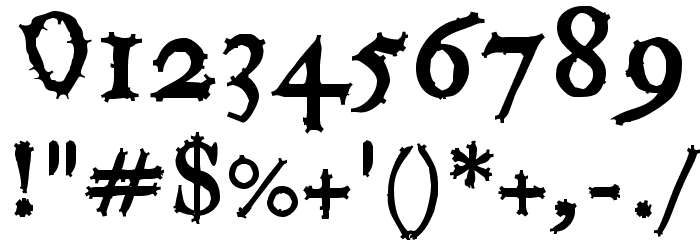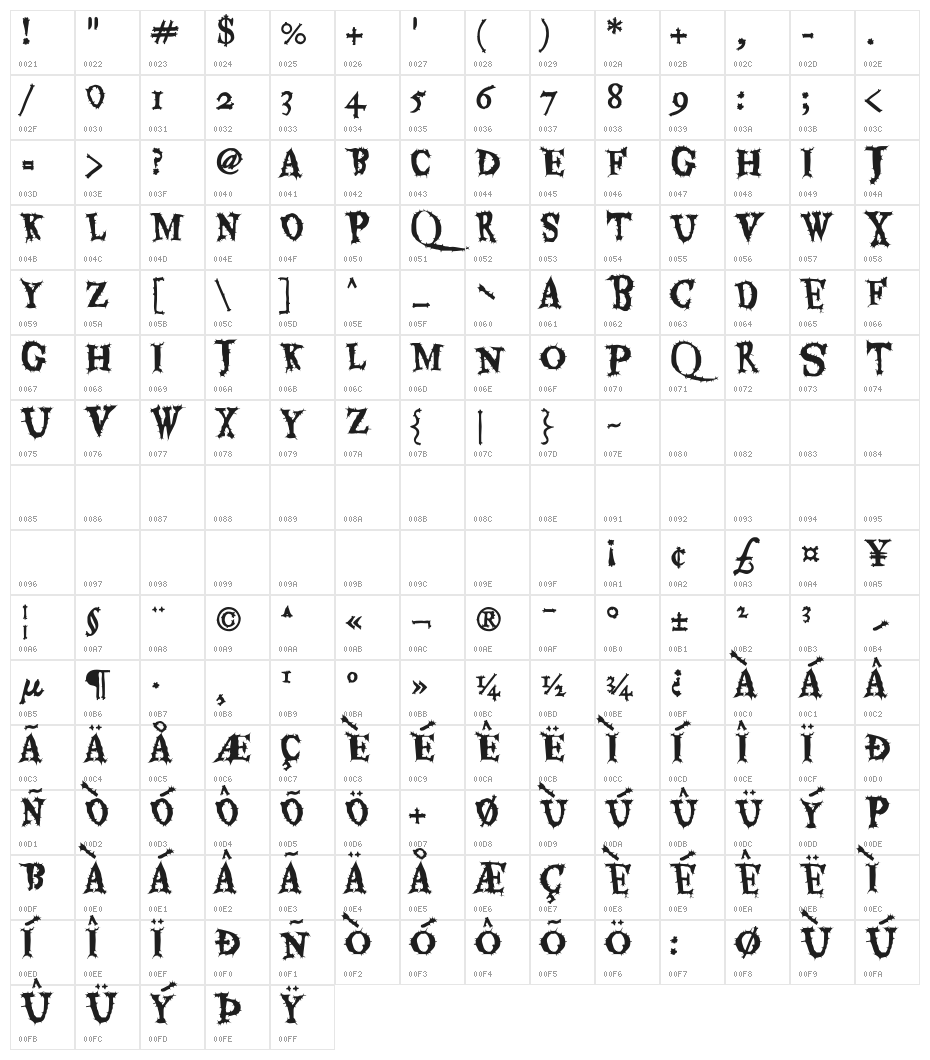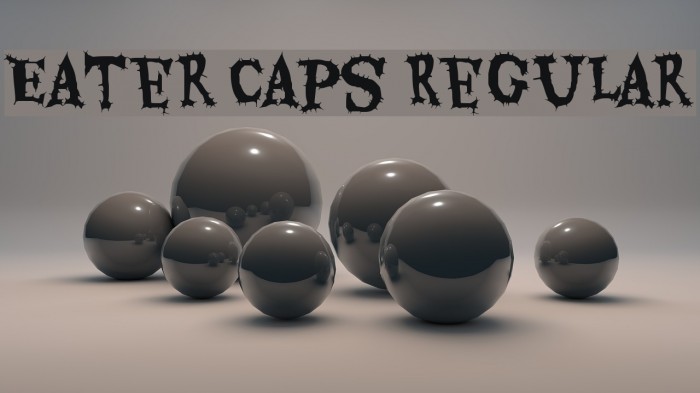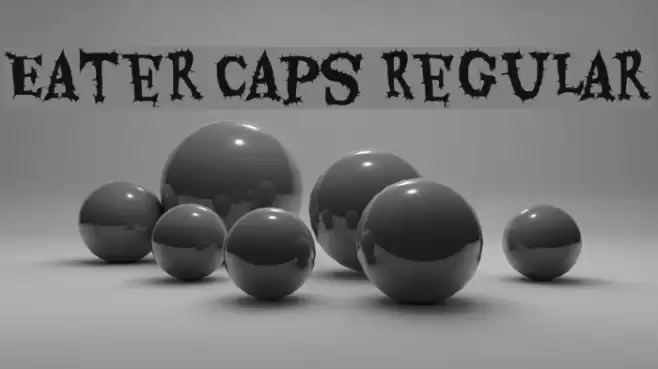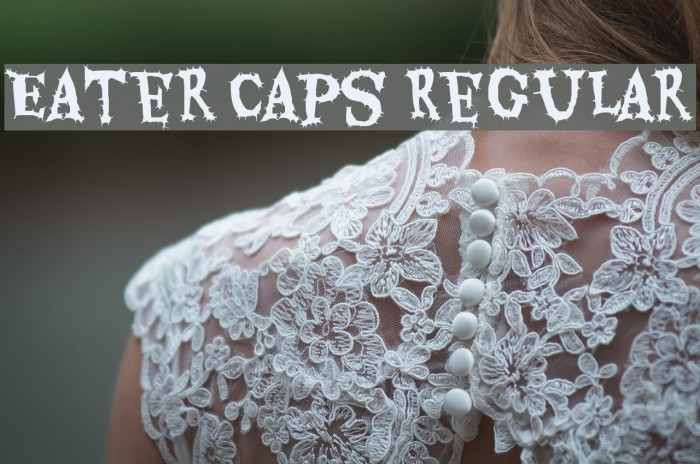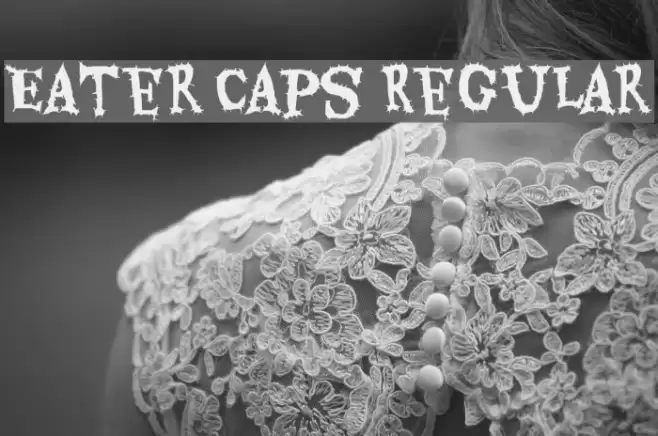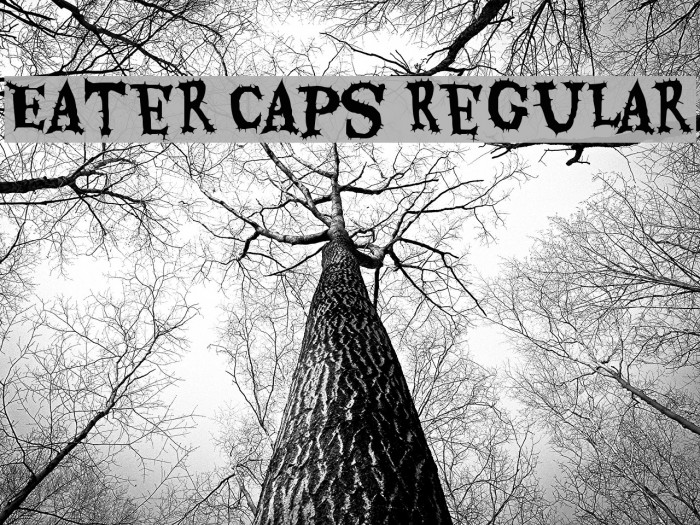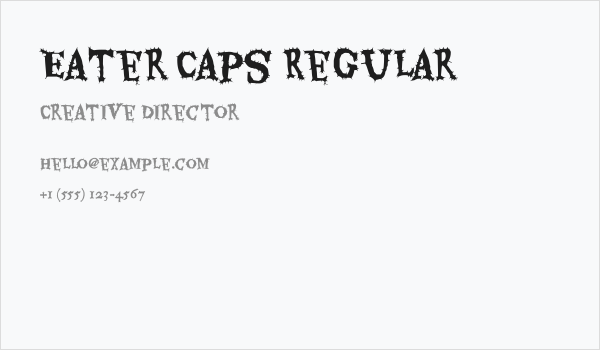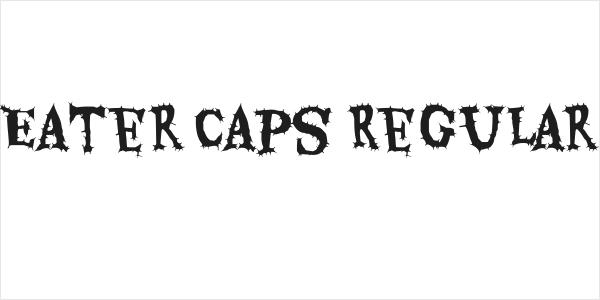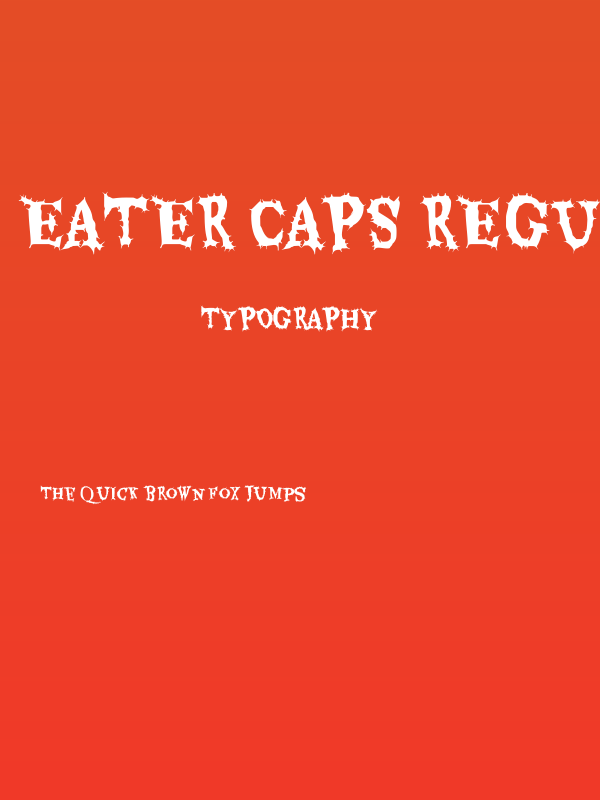
Eater Caps Regular Font
Eater Caps Regular Description
This font features a distinctive, jagged design that evokes a sense of horror or the macabre. Each character is adorned with thorn-like protrusions, giving it a unique and edgy appearance. The uppercase and lowercase letters maintain a consistent style, with sharp edges and irregular shapes that create a chaotic yet cohesive look. The numerals and special characters follow the same aesthetic, ensuring uniformity across all glyphs. This font's bold and dramatic style makes it ideal for projects that require a strong visual impact.
| Proposed Projects | Ideal for Halloween invitations, horror movie posters, themed event flyers, and any project needing a spooky or edgy vibe. |